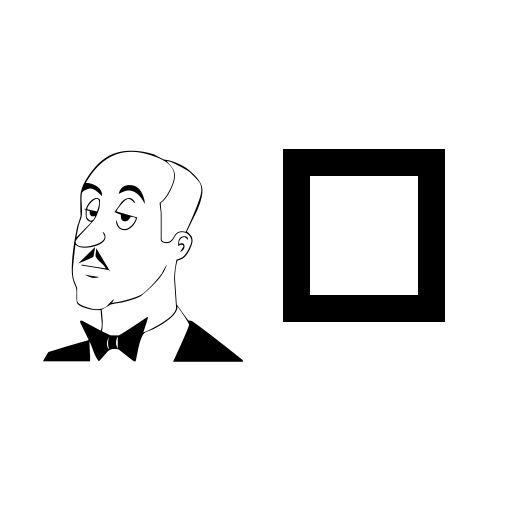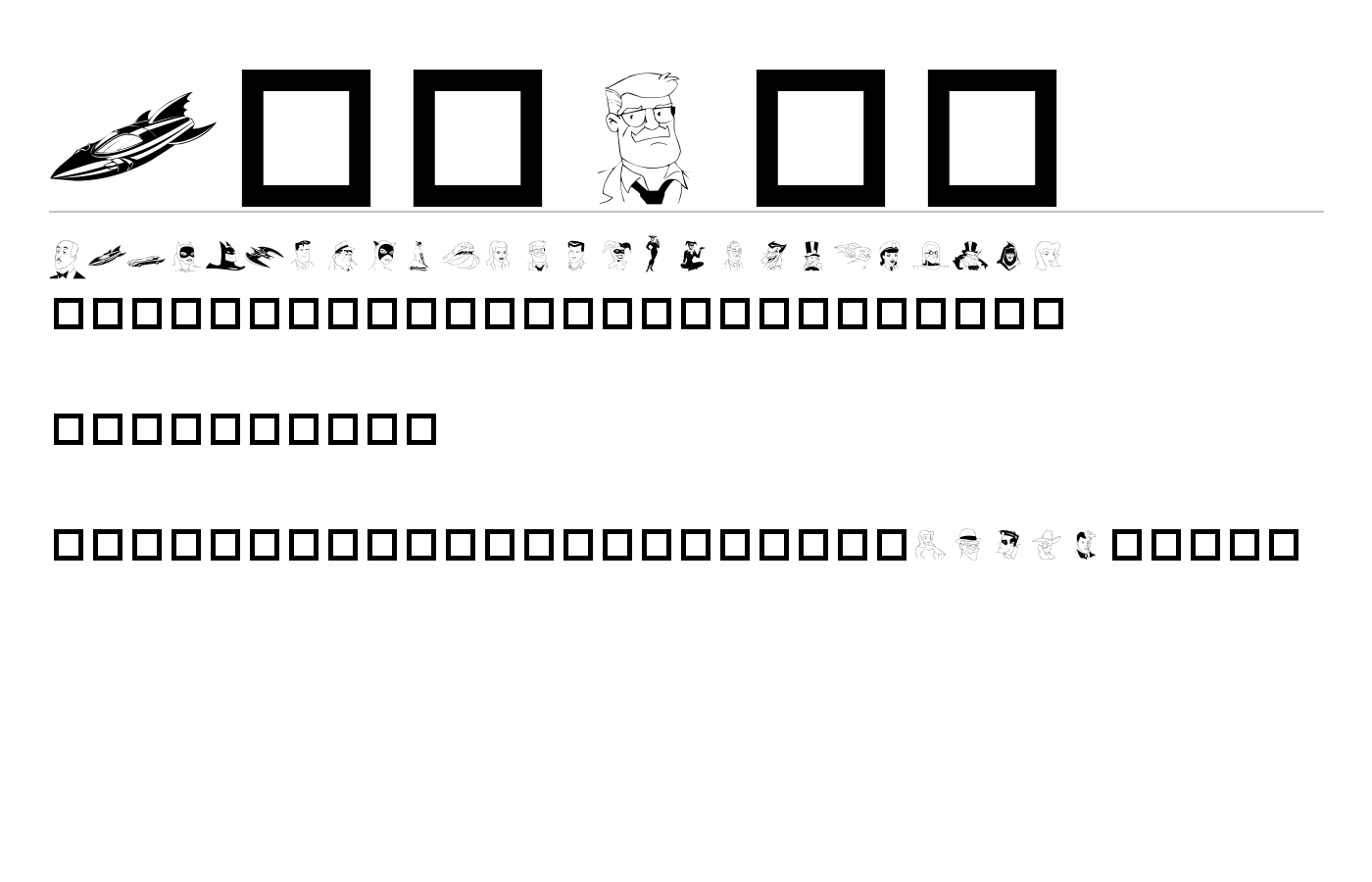
The BatMan Font is a unique symbol typeface featuring detailed black-and-white illustrations of iconic characters and elements inspired by the Batman universe. Instead of traditional letters, it uses recognizable comic-style graphics that convey a playful, nostalgic, and adventurous mood, making it perfect for fan projects, themed posters, or creative branding related to superheroes and comics. Its distinct visual style adds a fun, storytelling element rather than serving conventional text needs.
BatMan Font
About BatMan Font